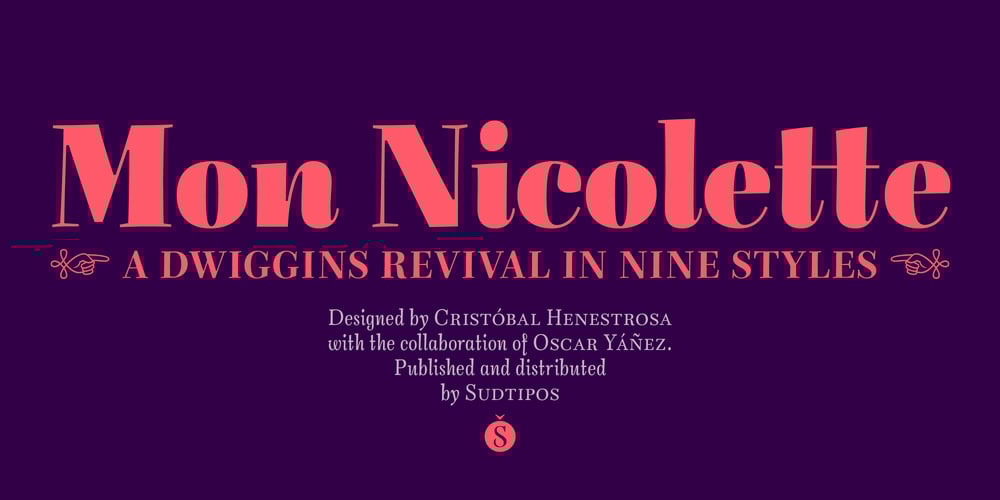
Mon Nicolette Font Family was designed by Cristóbal Henestrosa and published by Sudtipos. Mon Nicolette contains 10 styles and family package options. This is a digital revival by Cristóbal Henestrosa based on an experimental typeface named Charter, designed – yet never fully accomplished – by the prominent William Addison Dwiggins. It is an upright italic, unconnected script typeface, whose main features are a pronounced contrast, condensed forms and exaggerated ascenders. While Dwiggins worked on this project from 1937 to 1955, he only completed the lowercase and a few other characters. However, it was used to set a specimen in 1942 and a short novel in 1946. The sources that Cristóbal used for Mon Nicolette were the original sketches by WAD as well as printing trails kept at the Boston Public Library, and a copy of the 1946 edition of The Song-Story of Aucassin and Nicolette. This gorgeous typeface can be used successfully in headlines, subheads and short passages of text from 12 points onwards, in applications such as fashion magazines, soft news, advertising, poetry, albums, and book covers. This project started ten years ago, while Cristóbal was studying the Type@Cooper Extended Program at New York City. A previous version was selected to be part of the Biennial Tipos Latinos 2018, and now Mon Nicolette is finally ready for commercial distribution with Sudtipos… and we are very proud of it! Festina lente.